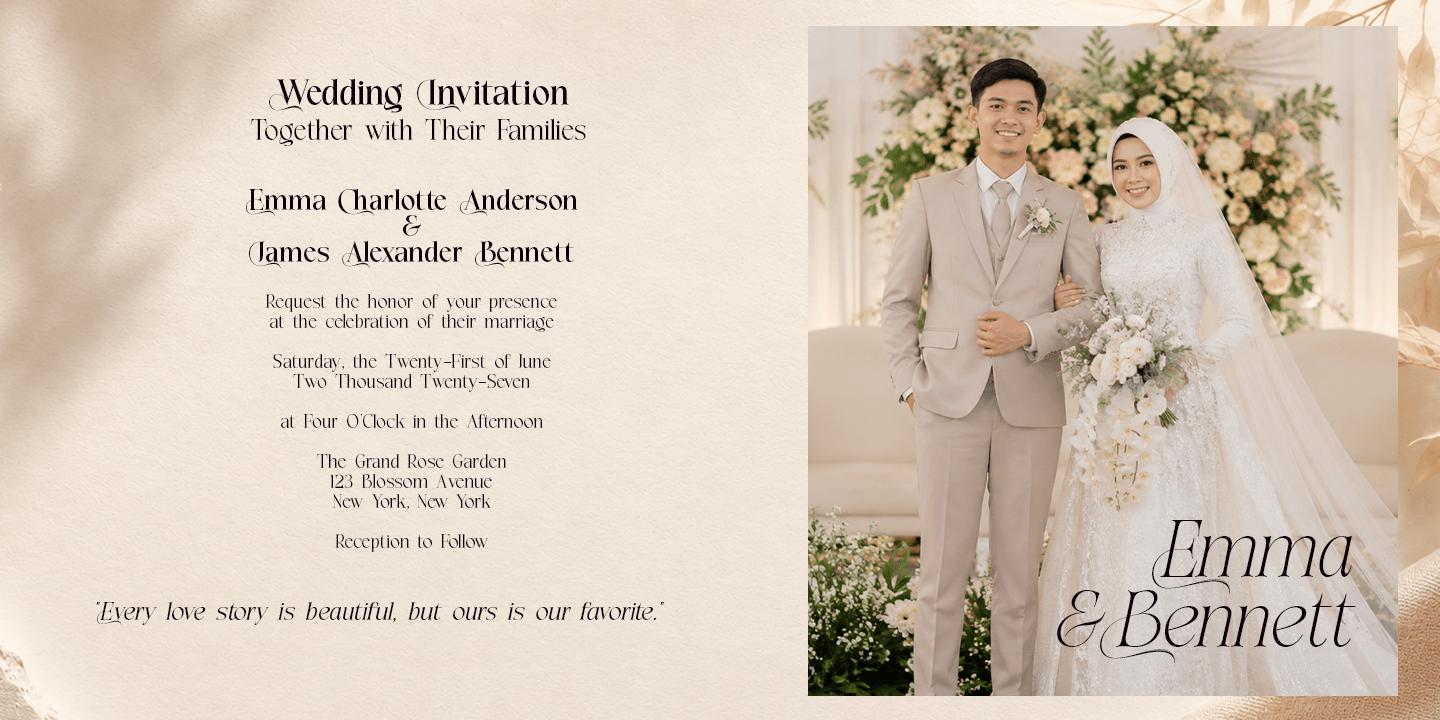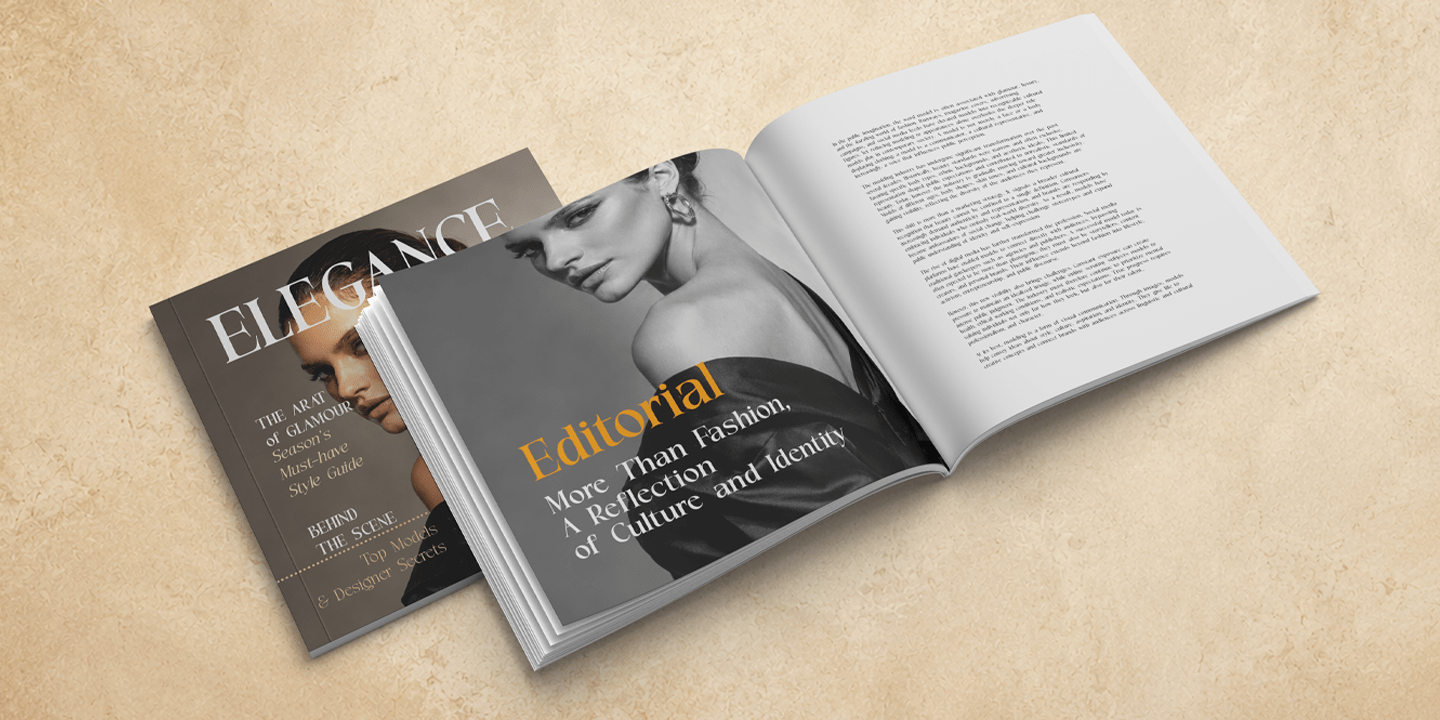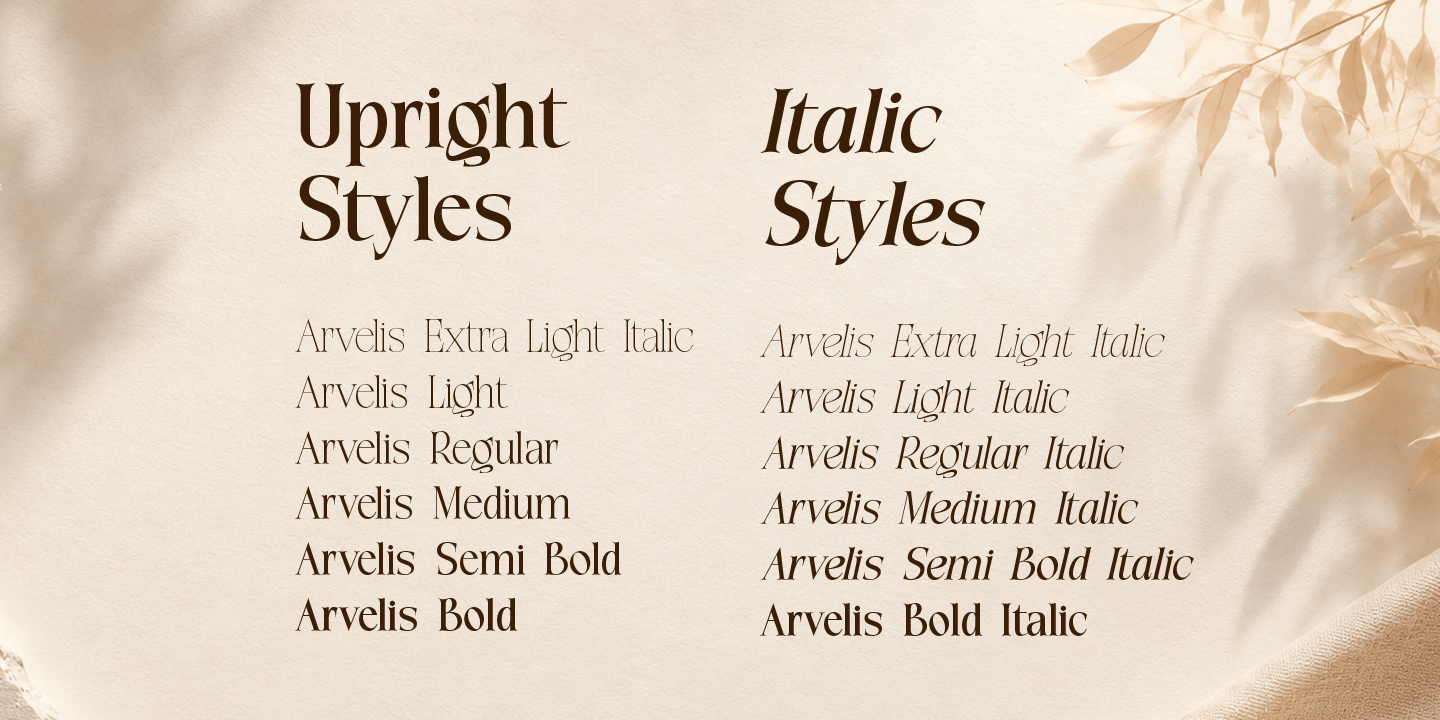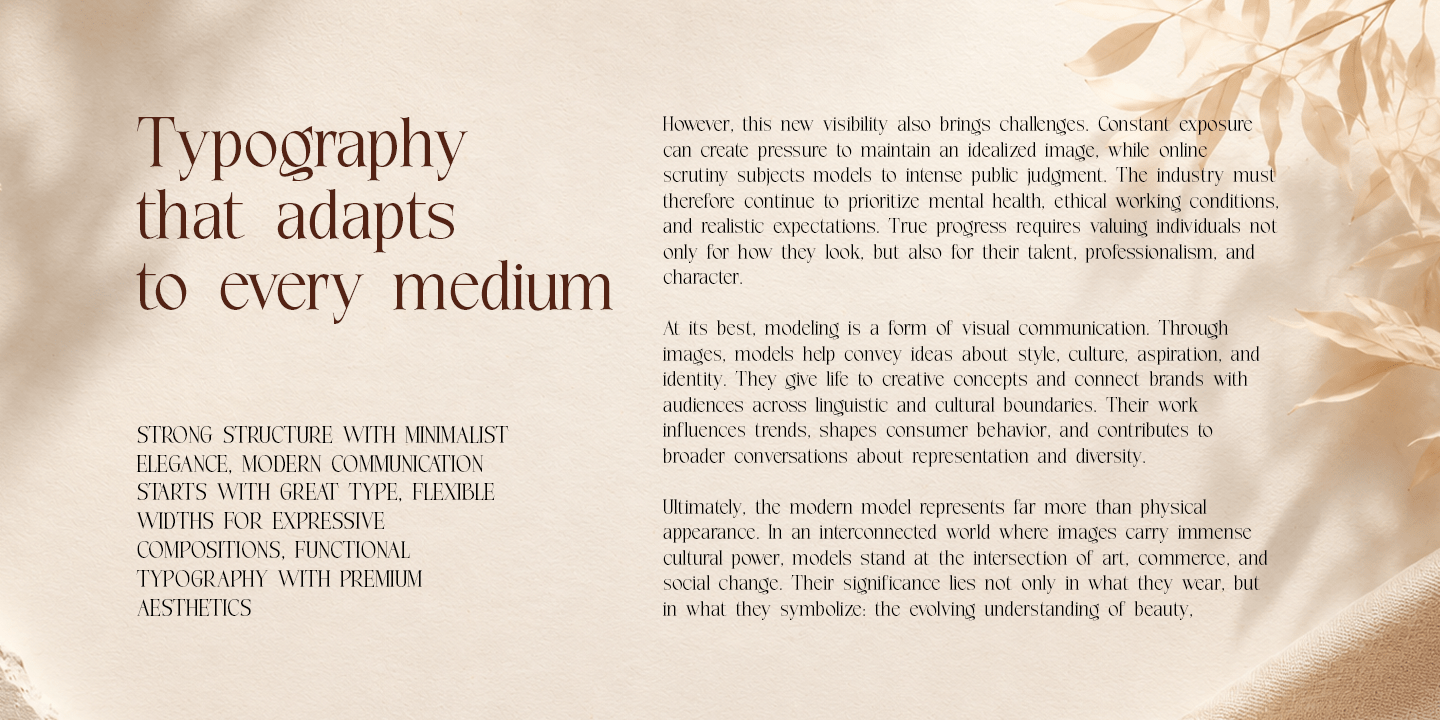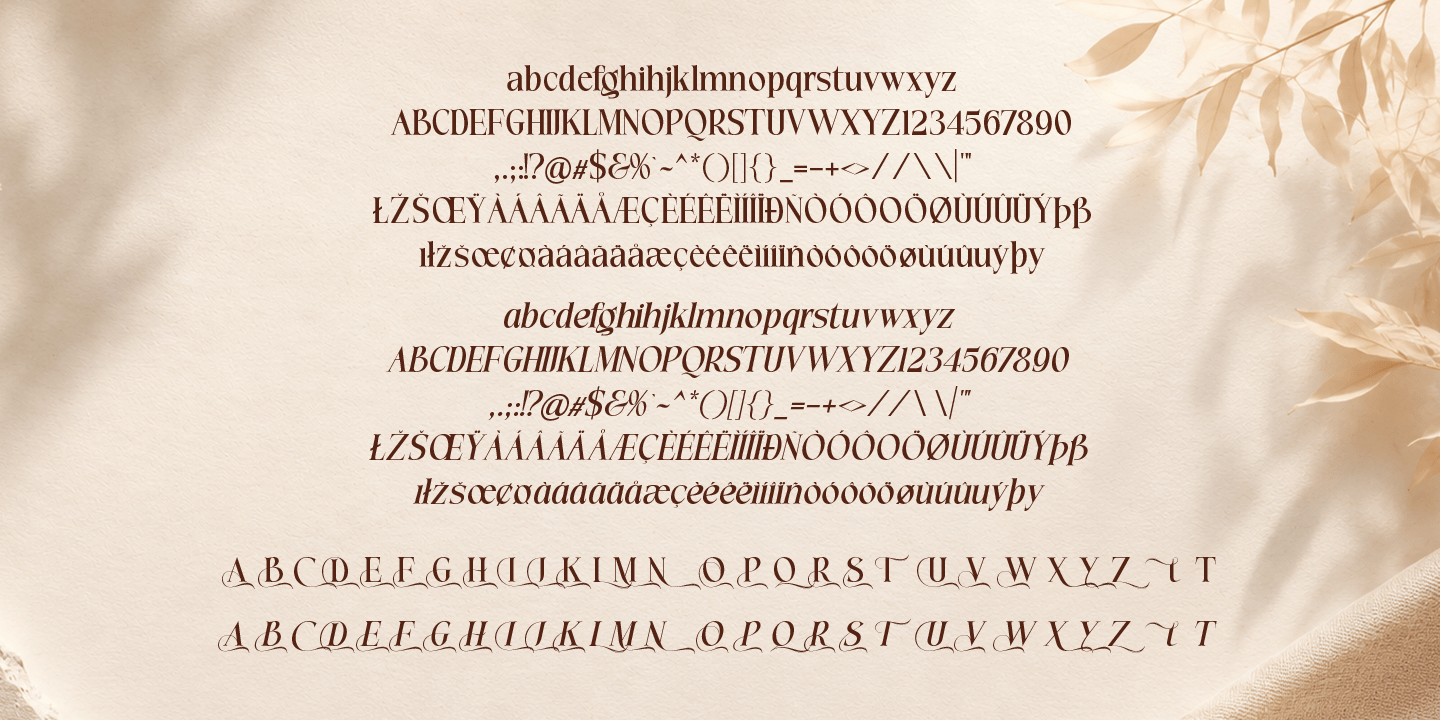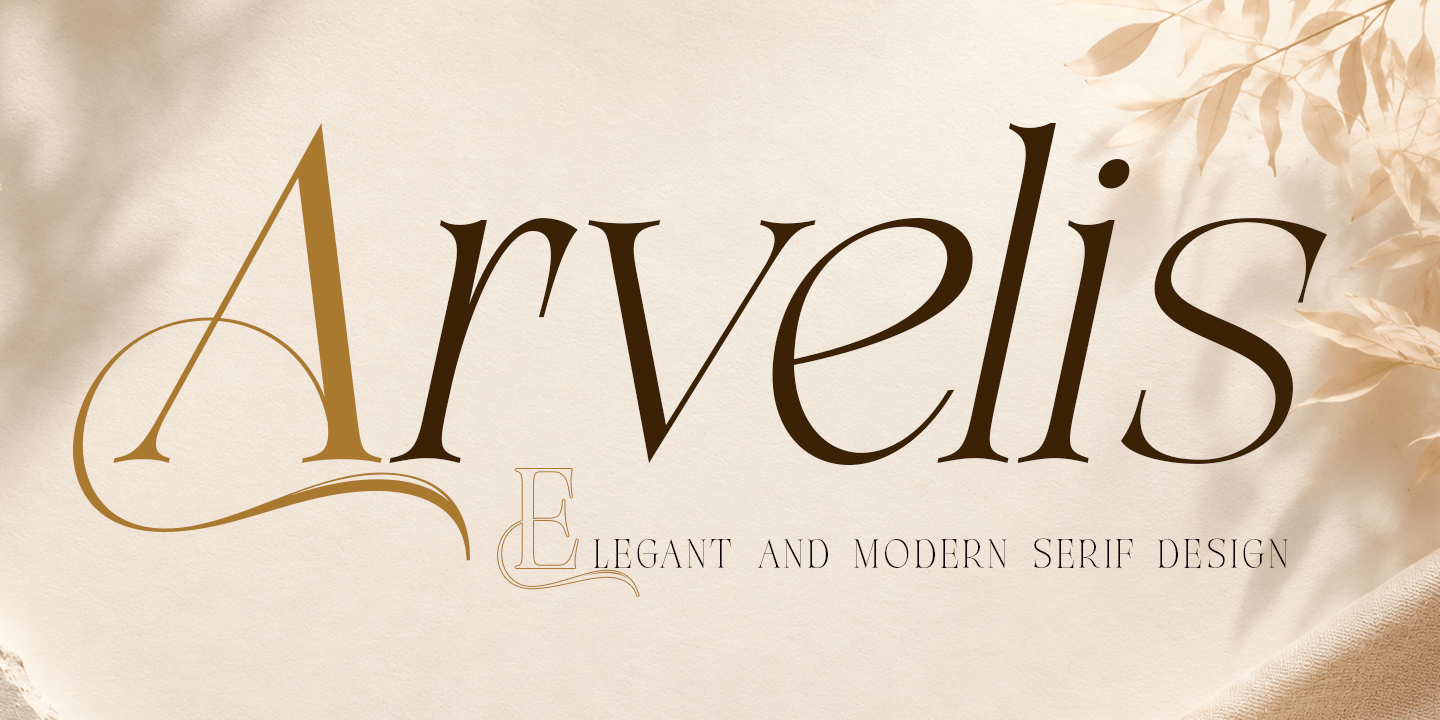
Arvelis
**Arvelis Serif Font Family**
**Arvelis** is a refined and contemporary serif typeface designed to bring elegance, clarity, and sophistication to any creative project. Combining timeless serif traditions with modern proportions, **Arvelis** delivers exceptional readability while maintaining a distinctive character. Its balanced letterforms, graceful curves, and carefully crafted details make it suitable for branding, editorial layouts, luxury packaging, invitations, book design, advertising, and digital applications.
The family includes 12 styles, featuring 6 upright weights and 6 matching italics, allowing designers to create harmonious typography systems with versatility and consistency. From delicate thin headlines to bold, impactful statements, **Arvelis** adapts effortlessly to both display and text settings.
Whether you're creating premium brand identities, fashion editorials, elegant websites, or sophisticated marketing materials, Arvelis provides the flexibility and visual presence needed to elevate your design.
**Features**
VElegant and modern serif design
V12 font styles (6 upright + 6 italic)
* Carefully balanced proportions
* Excellent readability for both print and digital media
* Ideal for branding, editorial, packaging, logos, headlines, and body text
* Professional multilingual support
* Punctuation, numerals, and symbols included
**Perfect For**
* Luxury Branding
* Fashion & Beauty Projects
* Editorial Design
* Book Covers & Publishing
* Wedding Invitations
* Packaging Design
* Logos & Visual Identity
* Social Media Graphics
* Website Typography
* Advertising Campaigns
**Arvelis** is crafted for designers who seek a sophisticated serif with timeless beauty and modern versatility, making it a reliable choice for both contemporary and classic design projects.
The Arvelis font family includes 260 glyphs.